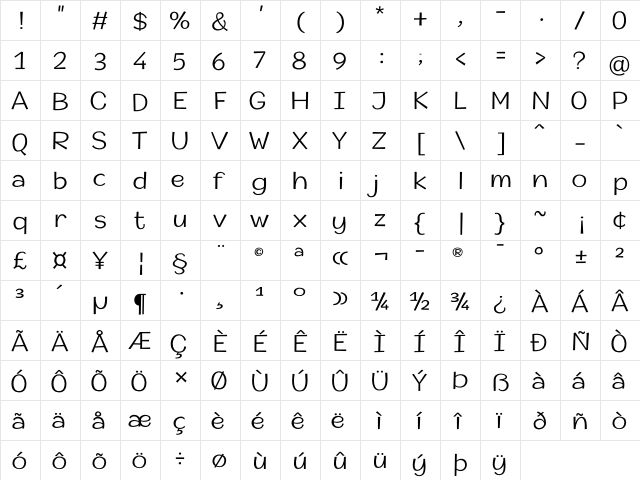
Champigna Light
| Foundry | Darwinoo |
| Designer | Darwinoo |
Design Context for Champigna Typeface
Champigna takes a measured approach to typography — its balanced proportions and neutral character make it a reliable workhorse for both digital and print work. Its slender proportions lend an understated elegance to any composition.